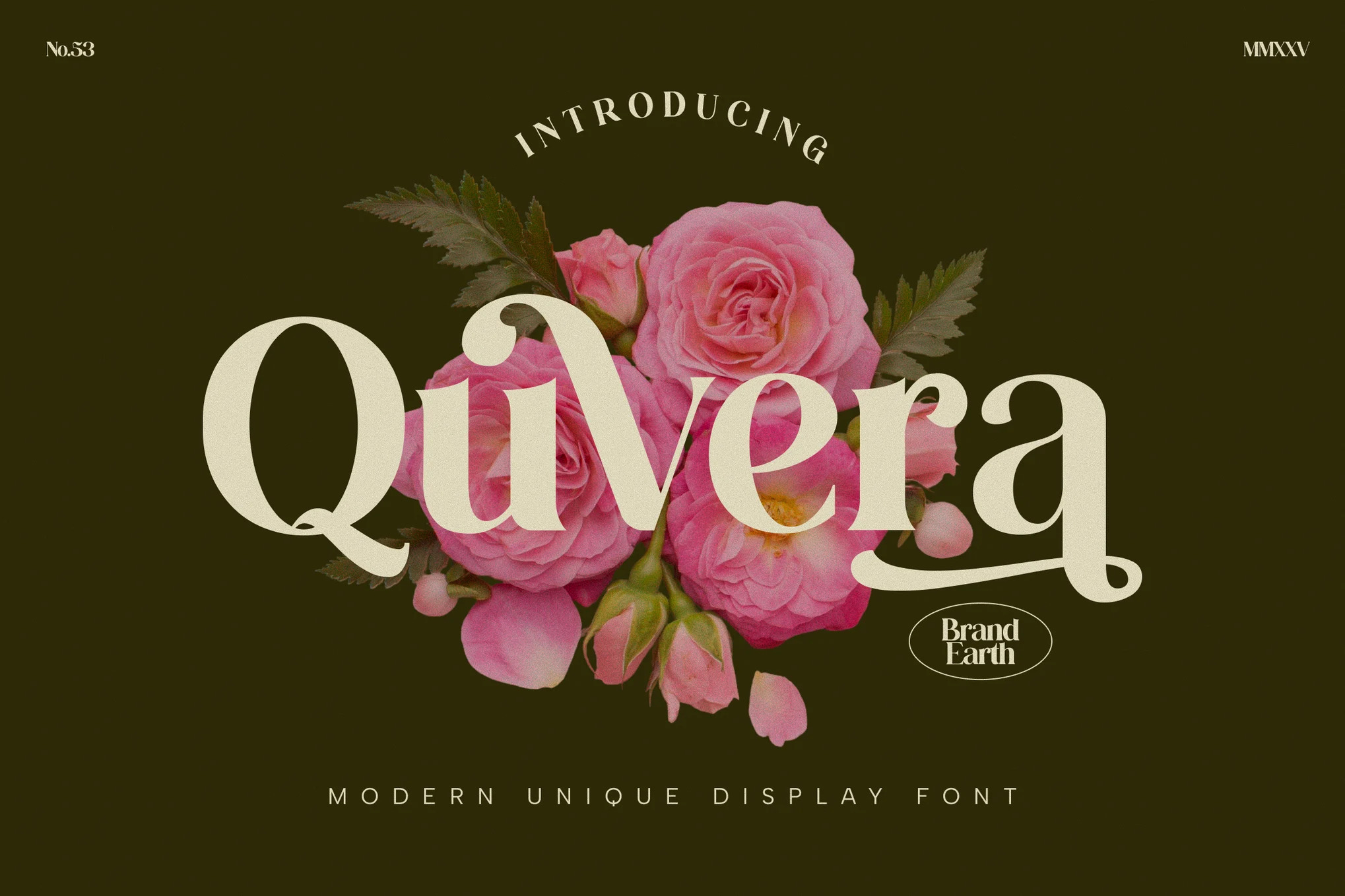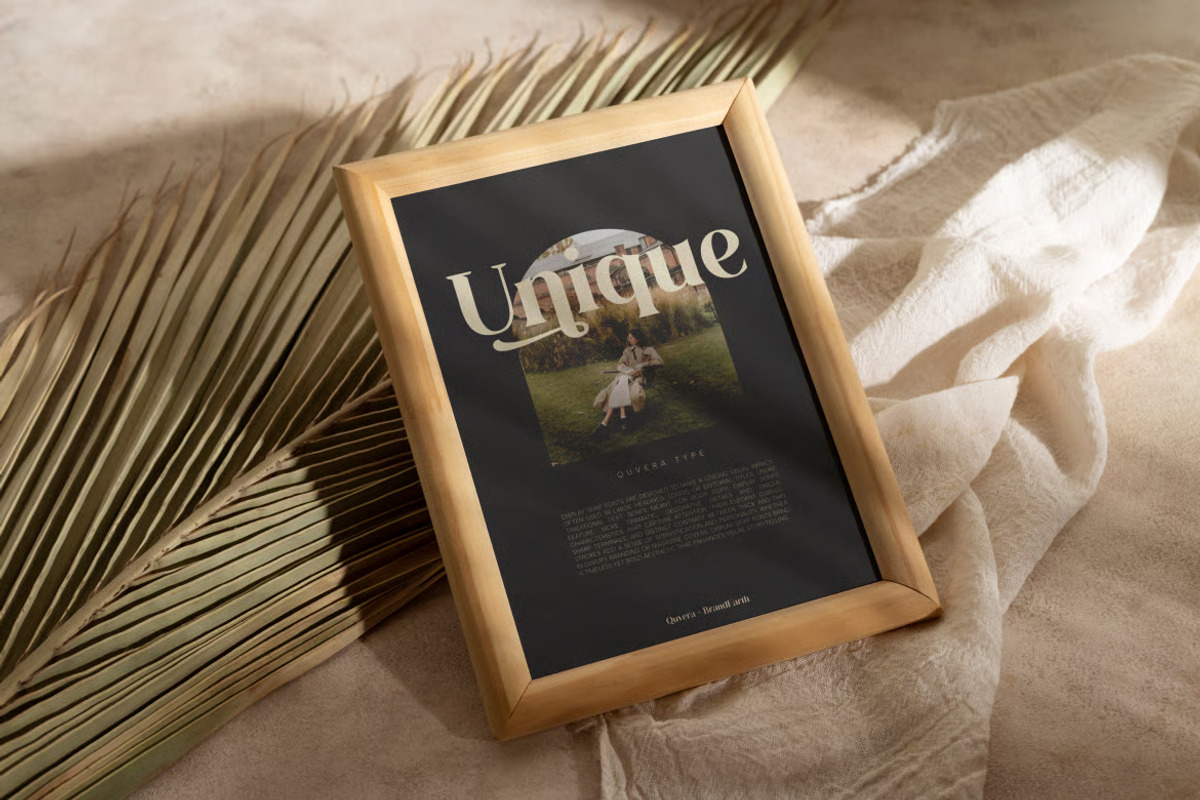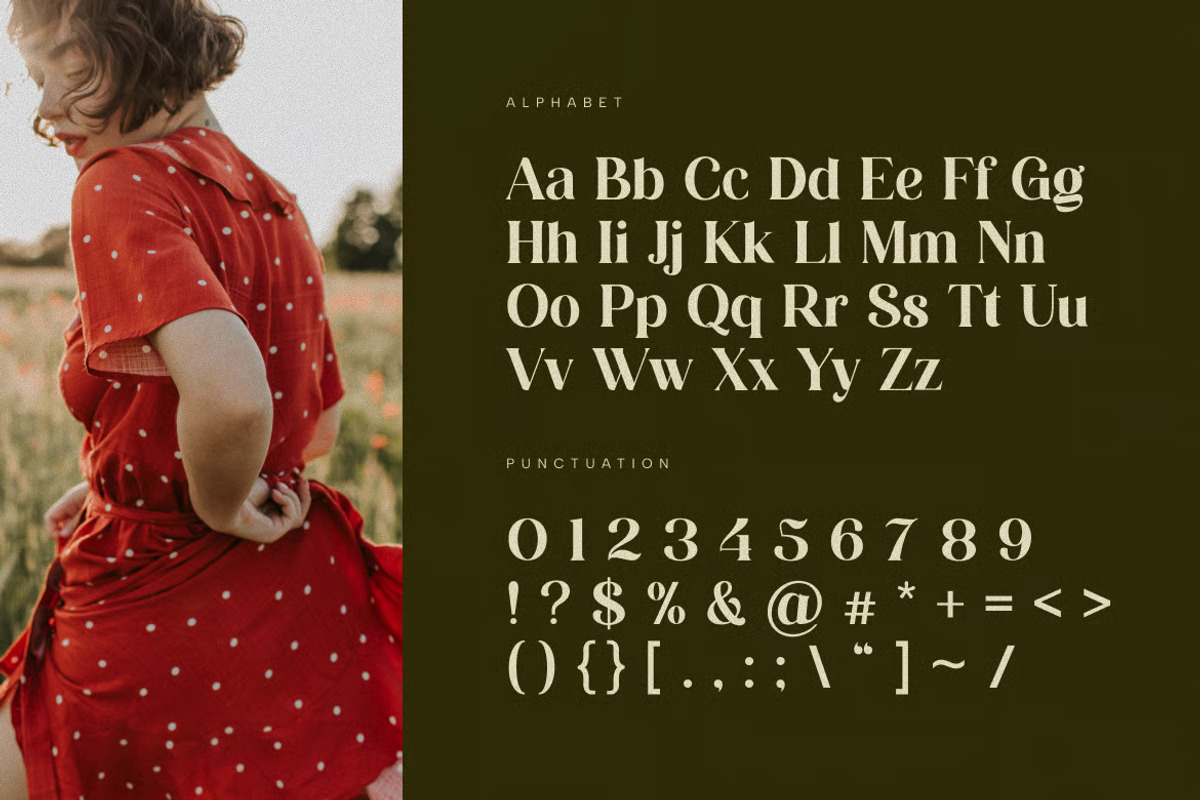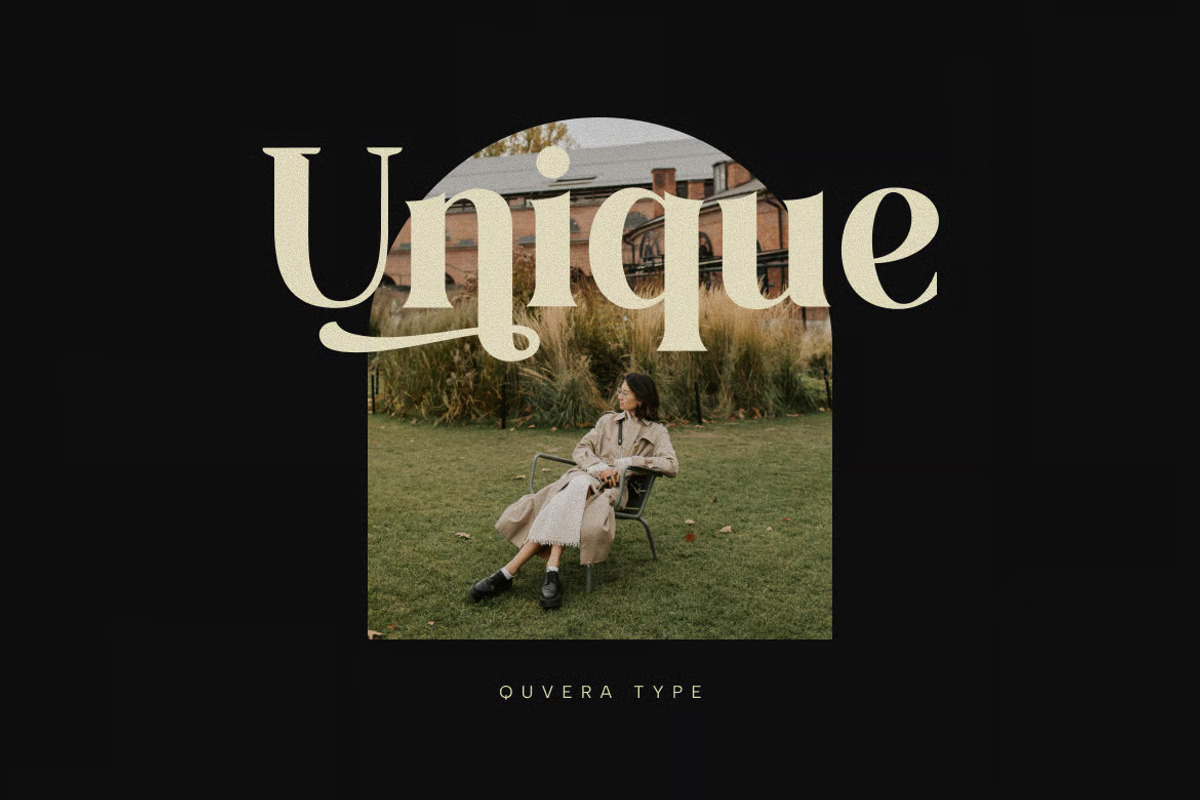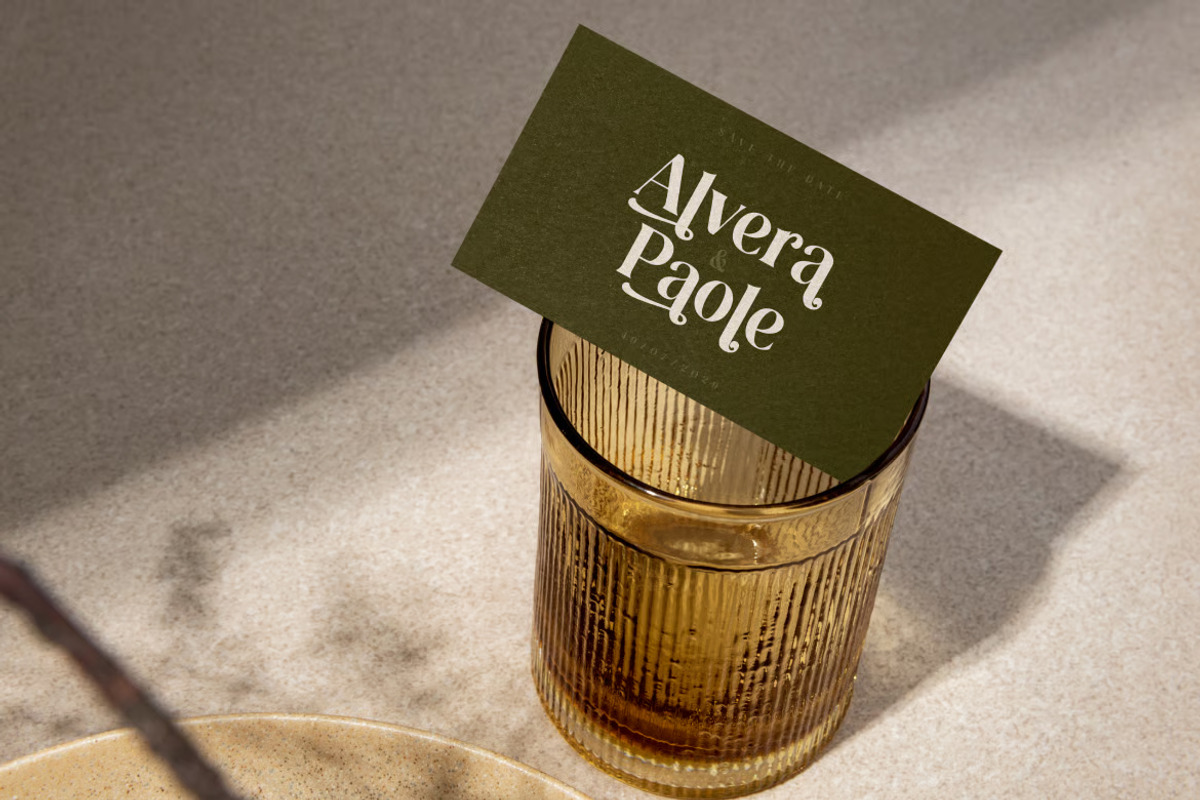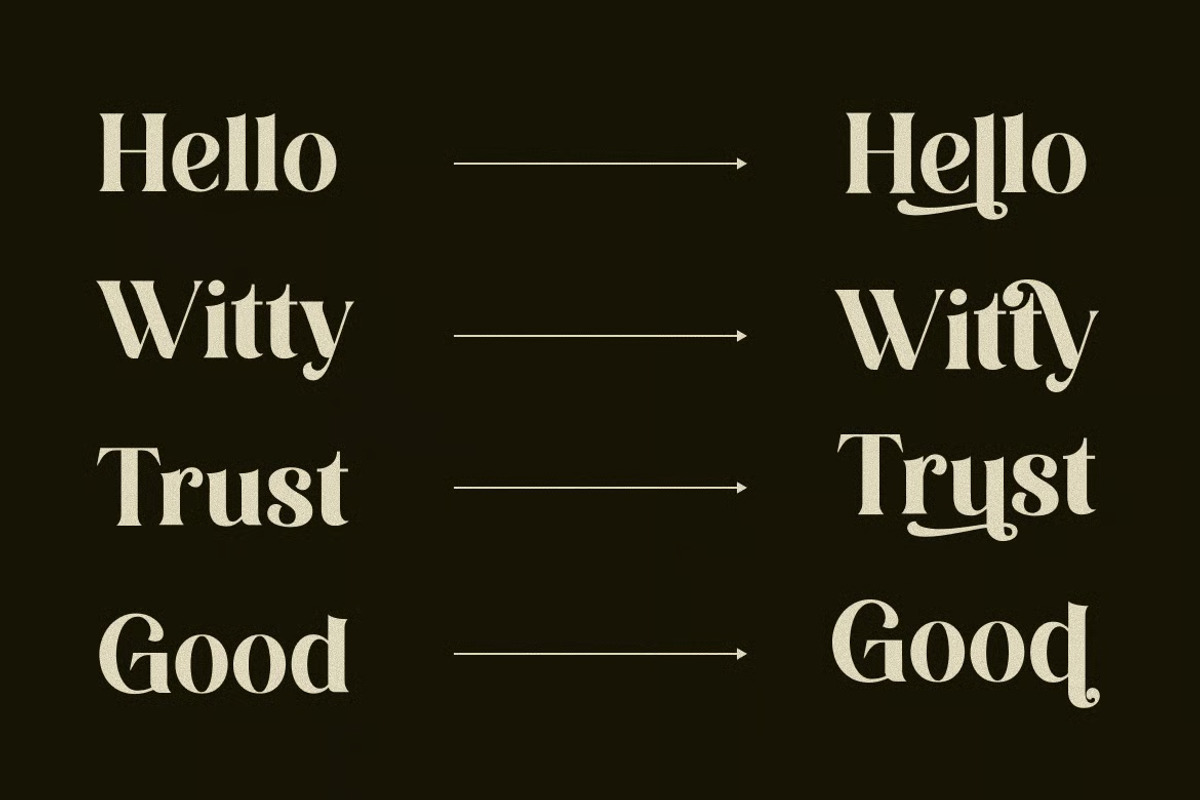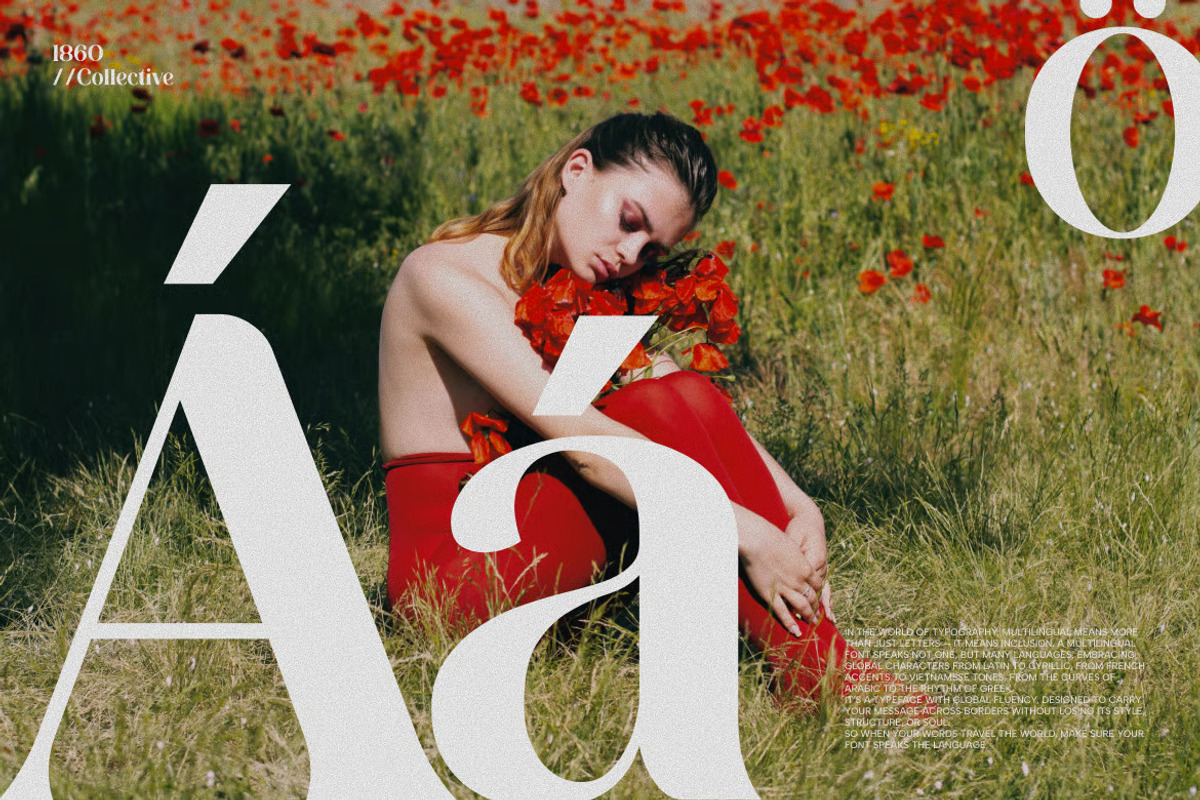
Quvera - Elegant Serif Display Font
Quvera is an elegant serif display font that blends artistic flair with modern sophistication. Its high-contrast strokes and graceful, flowing curves give each letterform a romantic, blooming character, making it a striking choice for designs that call for both class and creativity. Quvera brings a decorative, editorial touch to any visual project, offering a refined balance between vintage charm and contemporary elegance.
The letterforms in Quvera are shaped with dramatic swashes, delicate serifs, and a graceful rhythm that feels both artistic and polished. This decorative sophistication makes it especially well-suited for fashion branding, wedding stationery, and packaging design that needs to feel luxurious yet full of personality.
With its ornate detailing and confident presence, Quvera bridges the gap between bold display typography and timeless serif elegance. It brings a captivating, blooming touch to any design, making it ideal for magazine headers, boutique identities, and aesthetic lookbooks.
Ligatures & Alternate
Numeral & Punctuations
Suitable For: branding projects, logo design, magazine headers, wedding invitations, fashion labels, packaging design, product branding, editorial layout, creative posters, social media graphics, art books, modern stationery, boutique identity, visual storytelling, floral themes, luxury branding, aesthetic lookbooks, print design, decorative signage, and artistic compositions.